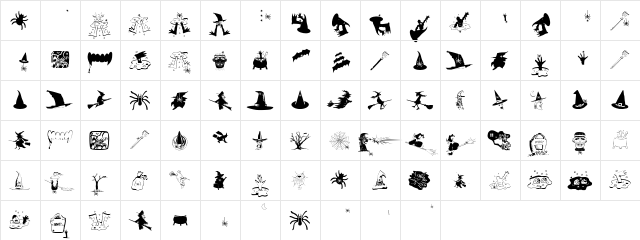
SpidersClub Regular Font Preview
SpidersClub Regular
Design Context for SpidersClub Typeface
SpidersClub is a composed and adaptable typeface that performs quietly and consistently across a wide range of design contexts.